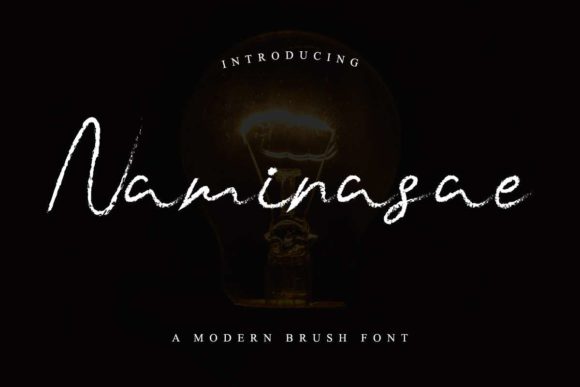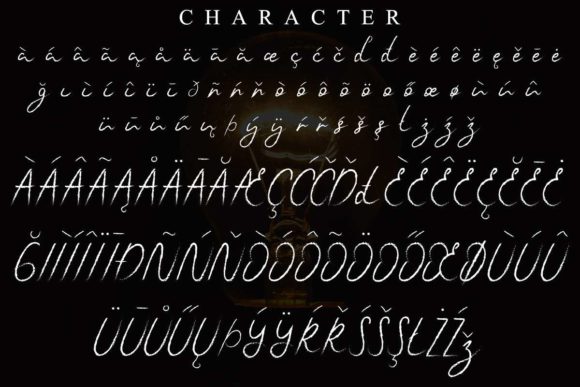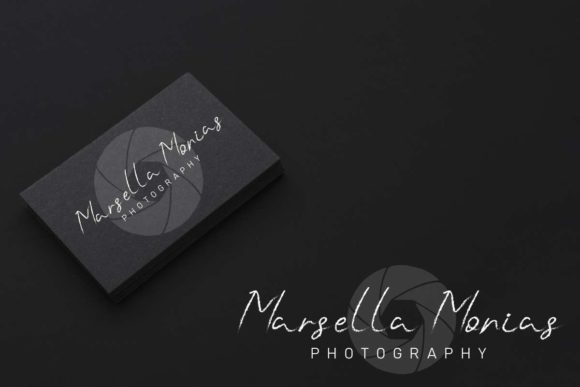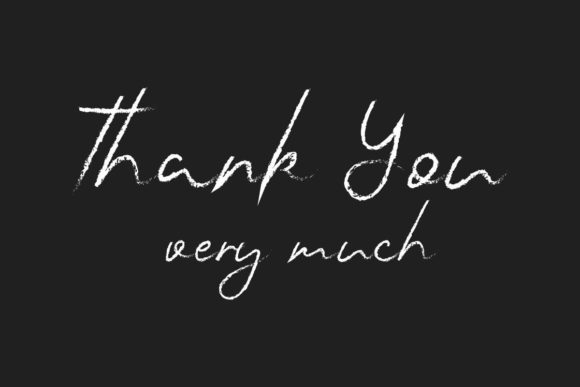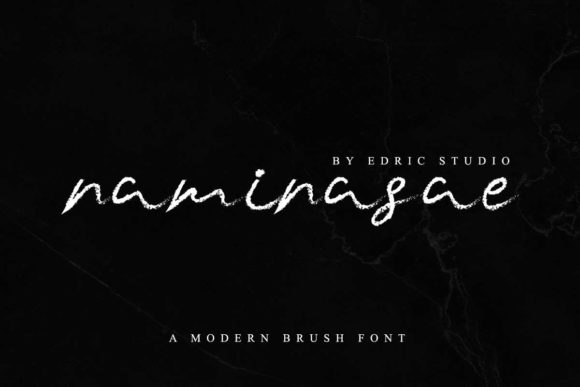
About Naminasae Font
Naminasae is a truly exquisite and versatile handwritten font that exudes elegance and charm. Its delicate and beautiful style makes it a perfect choice for a wide range of design projects, especially those that require a touch of sophistication and romanticism. Here are some ways to make the most of Naminasae font and create stunning designs:
1. Wedding Invitations: Design enchanting and captivating wedding invitations with Naminasae font to set the perfect tone for the special day.
2. Stationery Art: Create beautiful and artistic stationery art using Naminasae font, perfect for personalized notes and letters.
3. Social Media Posts: Enhance your social media presence with eye-catching and visually appealing graphics designed with Naminasae font.
4. Branding: Use Naminasae font in branding materials such as logos, business cards, and packaging to elevate your brand’s identity.
5. Quotes and Wall Art: Create inspiring and captivating quote prints and wall art featuring Naminasae font to add a touch of elegance to any space.
6. Blog Headers: Make your blog stand out with elegant and stylish headers created using Naminasae font, attracting and engaging readers.
7. Photography Watermarks: Protect and personalize your photography with a sophisticated watermark created with Naminasae font.
8. Event Invitations: Design refined and elegant event invitations with Naminasae font for a timeless and classic appeal.
9. Book Covers: Add a touch of charm and elegance to book covers with Naminasae font, making them stand out on the shelves.
10. Product Packaging: Incorporate Naminasae font into product packaging to add a sense of luxury and sophistication to your products.
11. Menu Design: Create elegant and stylish menus for restaurants or special events using Naminasae font to elevate the dining experience.
12. Special Occasion Cards: Craft beautiful and heartfelt cards for special occasions like birthdays, anniversaries, and holidays with Naminasae font.
The versatility of Naminasae font allows it to be used in various design contexts, from formal and elegant to charming and romantic. Its delicate curves and graceful strokes make it a timeless and captivating choice for any project that requires a touch of beauty and sophistication. Embrace the elegance of Naminasae font and let it elevate your designs to new levels of enchantment and allure.